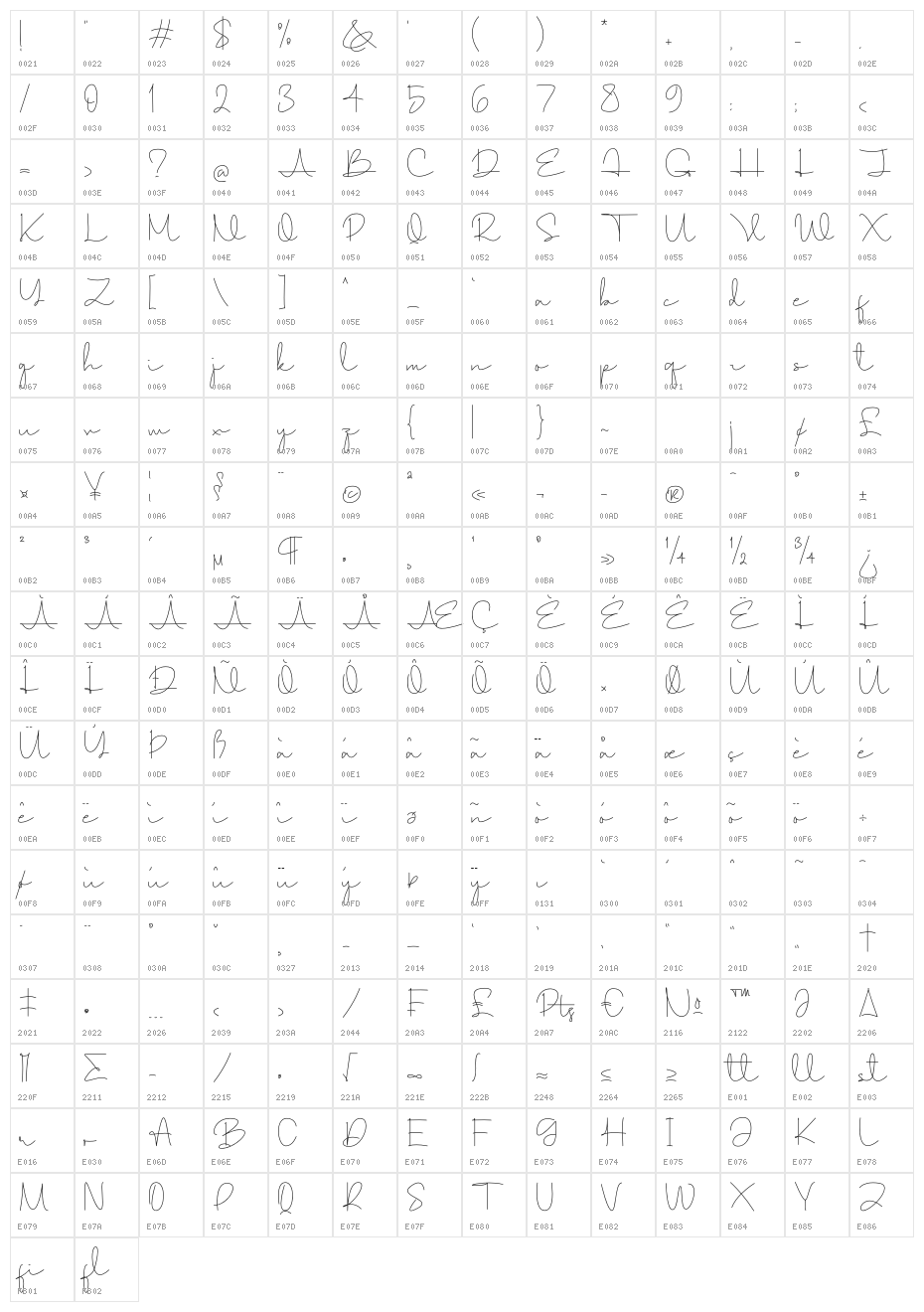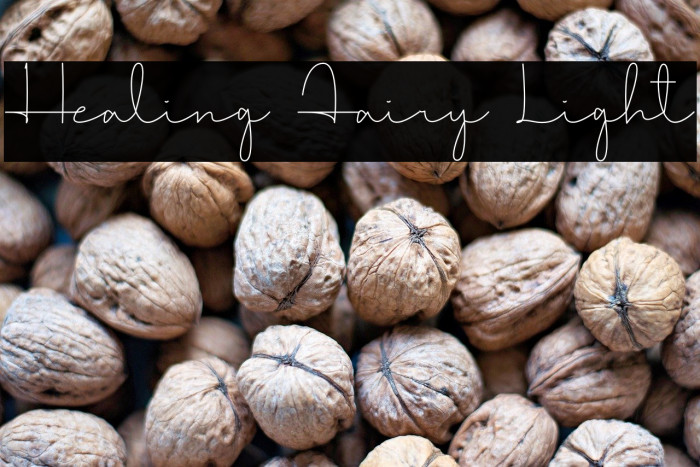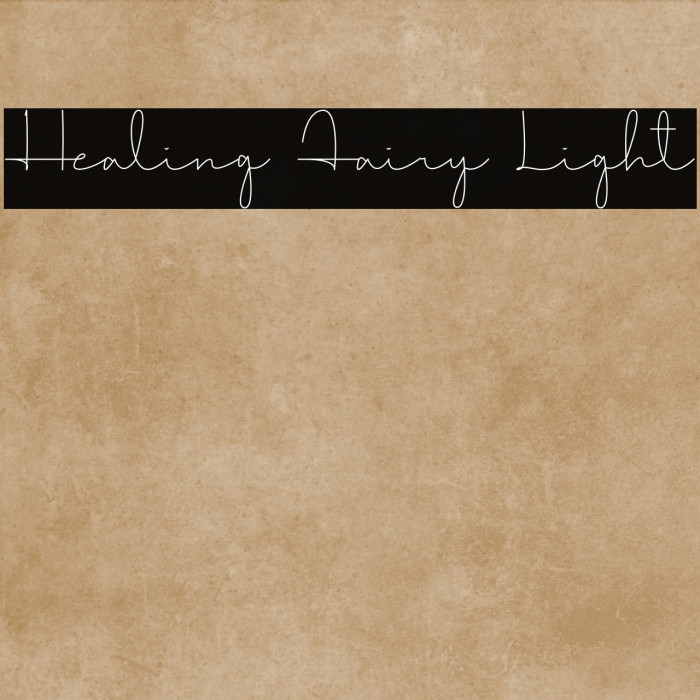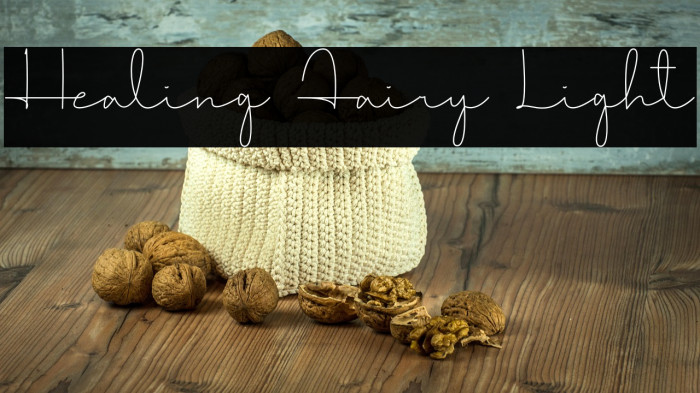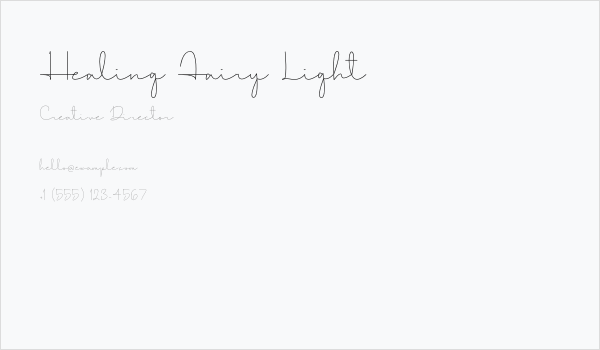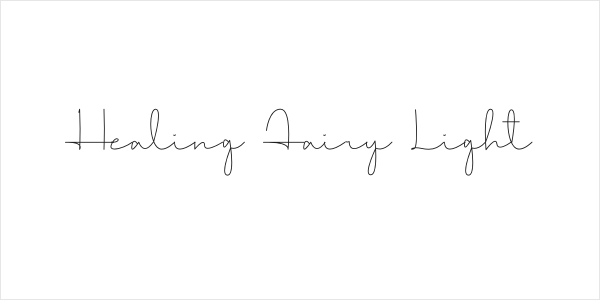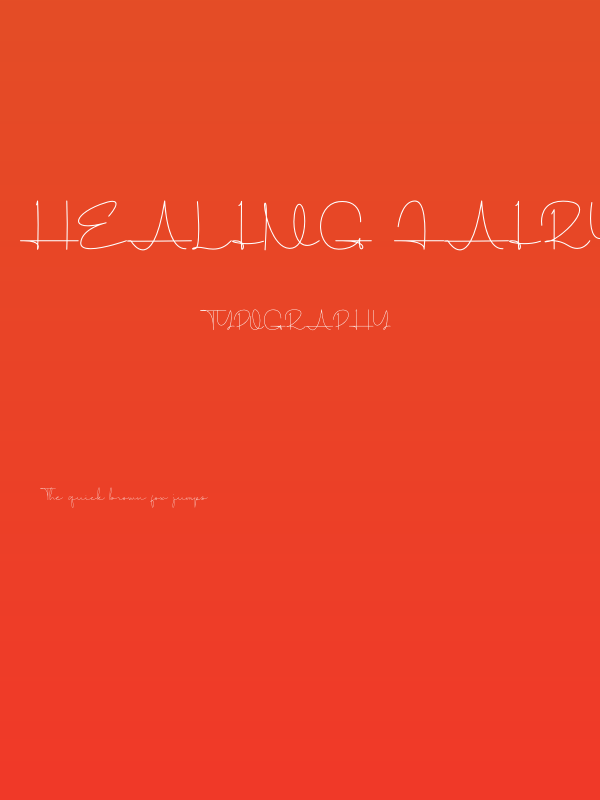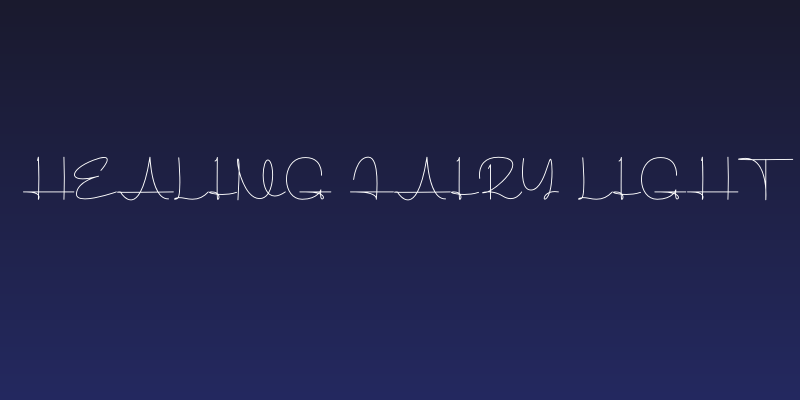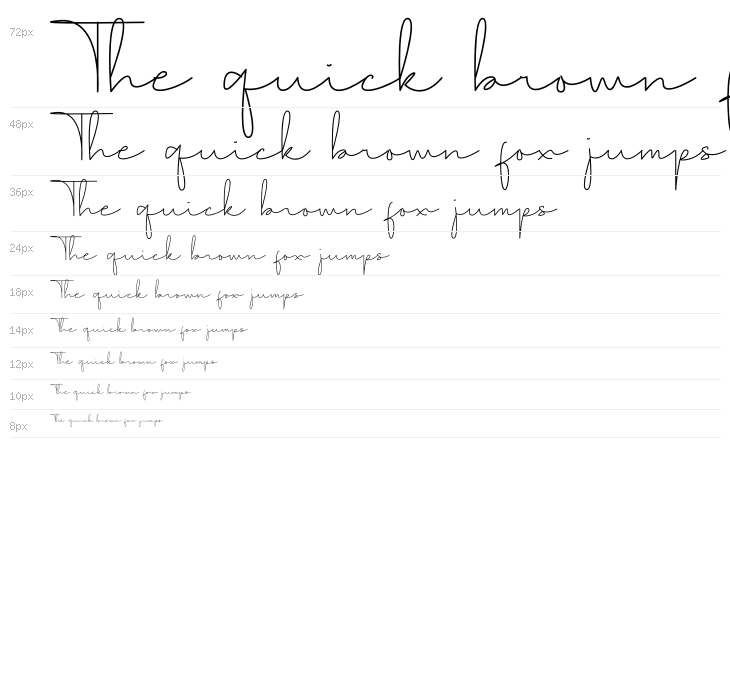
Healing Fairy Light Font
Healing Fairy Light Description
A delicate, monoline handwritten script with tall ascenders and descenders, featuring smooth, flowing curves and a whimsical, airy appearance. The characters are loosely connected, giving a casual yet elegant feel.
| Overall Style | Decorative, Whimsical, Modern |
| Use Case | Logos, Headlines, Decorative text, Short quotes |
| Proposed Projects | Greeting cards, invitations, quotes, feminine branding, social media graphics. |